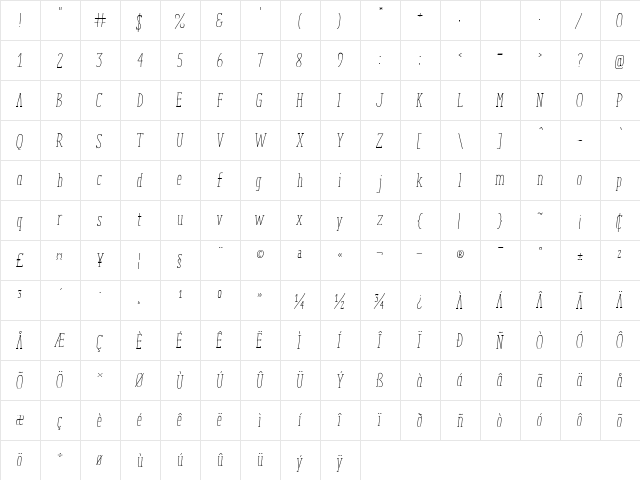
ENYO Serif Light Italic Light Italic
| Foundry | Julia Martinez Diana, Antipixel |
| Designer | Julia Martinez Diana, Antipixel |
Design Context for ENYO Serif Light Italic Typeface
ENYO Serif Light Italic brings classic typographic sensibility to the table — its serifs and measured letterforms reflect centuries of print heritage. The slanted form adds forward momentum and visual energy. The delicate stroke weight brings airiness and refinement to layouts.